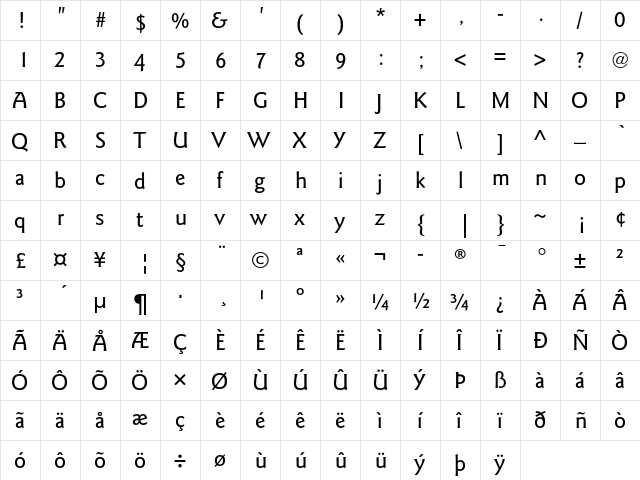
ITC Goudy Sans Medium
Design Context for ITC Goudy Sans Typeface
ITC Goudy Sans offers clean, dependable letterforms without strong stylistic allegiance, making it a practical choice for designers who need flexibility.
Pro Tip: Use ITC Goudy Sans in both headline and body roles to test its range before committing to a single application.